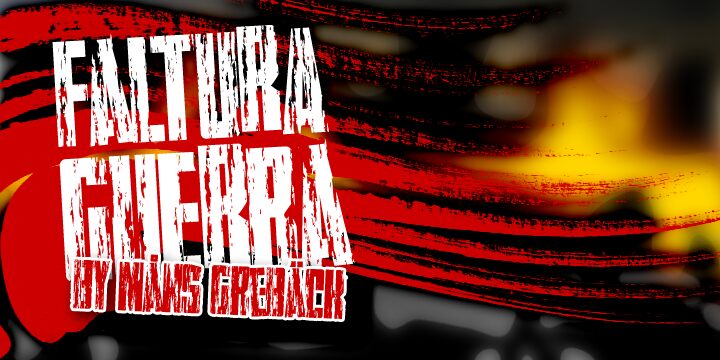
Faltura Guerra by Måns Grebäck is a free eroded display font with towering, tightly packed capitals and a severe industrial silhouette. Long scratches and ragged gaps tear through its dense strokes.
Concert posters are its strongest setting, turning a band name into a coarse wall graphic. The battered texture also suits album artwork, event merchandise, and distressed magazine covers, especially in designs that draw on photocopies or peeling ink. It feels most at home in punk, metal, and underground music projects, where damage becomes part of the subject rather than a decorative overlay.